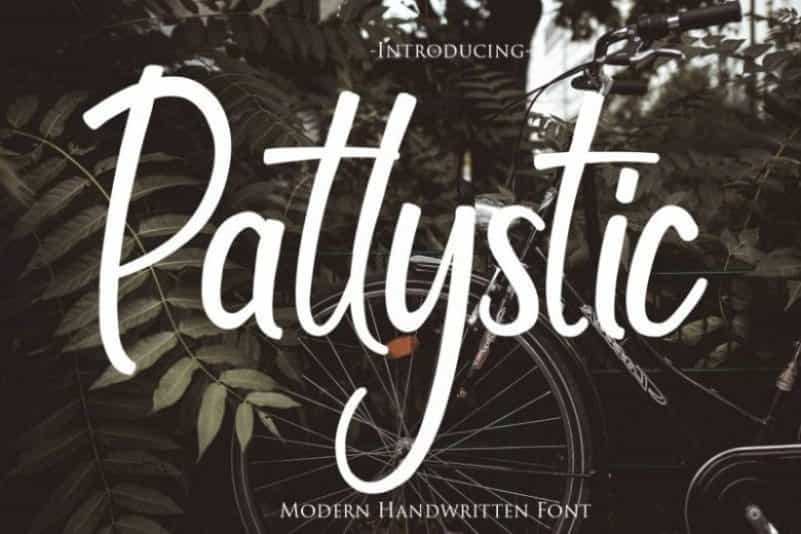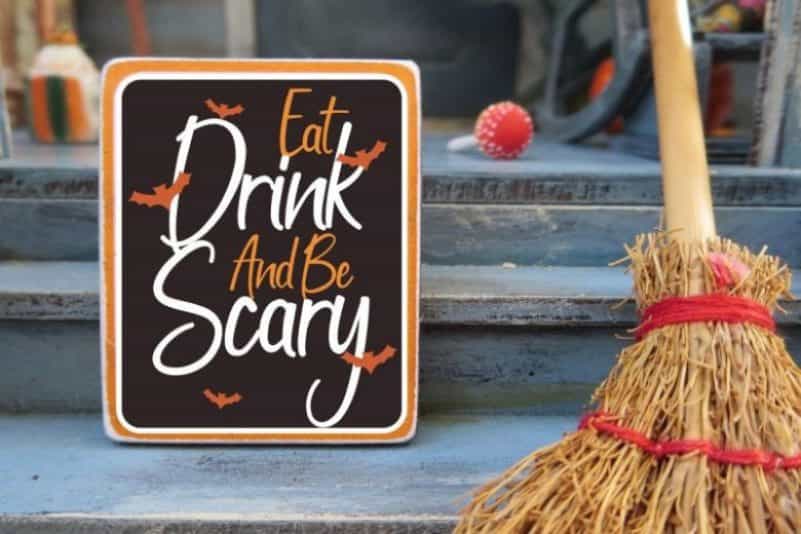
Add a touch of handmade style to your designs. With clean lines and great legibility, this font is ideal for signature, stationery, logo, typography quotes, magazine or book cover, website header, clothing, branding, packaging design and more.